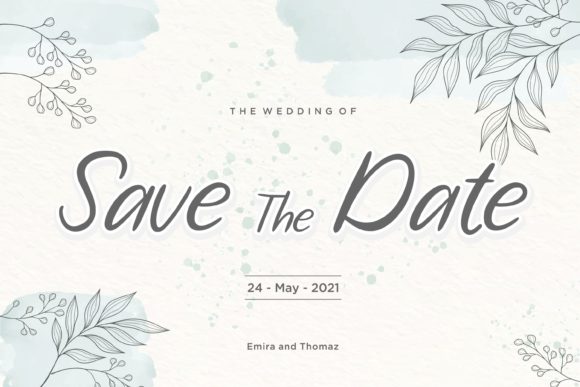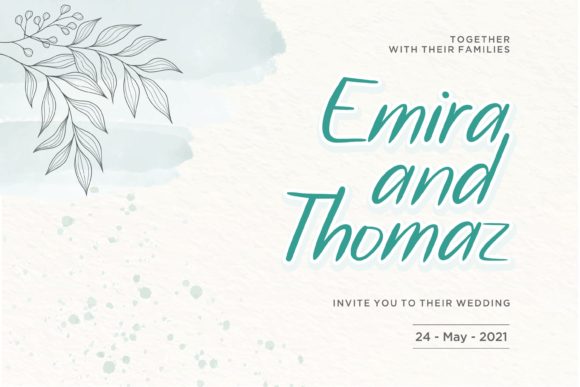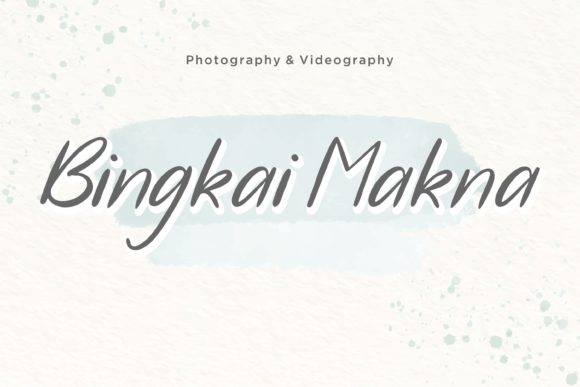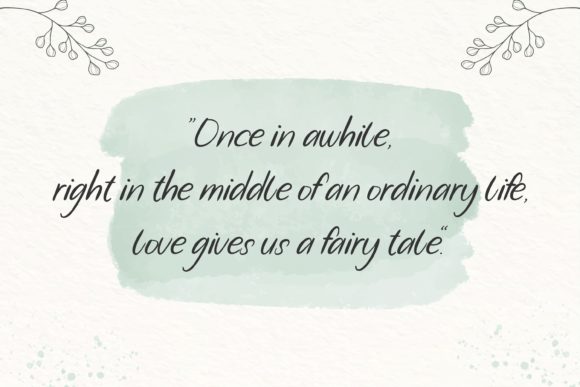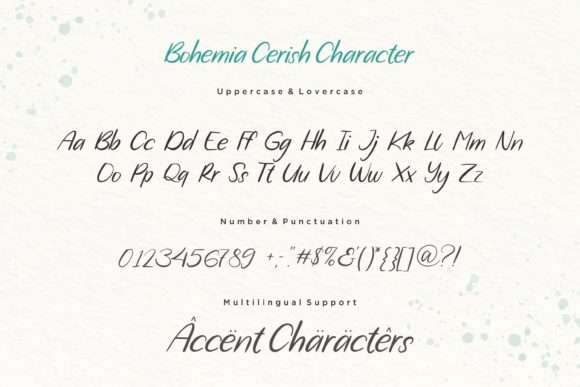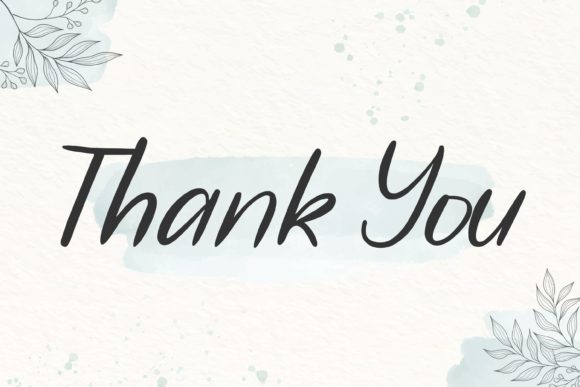
Introduction to Bohemia Cerish Font
Do you remember that moment when you finally found the perfect font to bring your creative project to life? The one that makes your design stand out and leaves a lasting impression on your audience? For many designers, that moment is a game-changer, and it’s exactly what Bohemia Cerish Font offers. This exquisite, handwritten font is a treasure trove of elegance and sophistication, making it the perfect design resource for any creative endeavor.
With its delicate, flowing lines and beautiful characters, Bohemia Cerish Font is a high-quality addition to any design arsenal. Whether you’re working on a project that requires a touch of whimsy or a more refined, sophisticated look, this font is sure to deliver. And the best part? It’s available for free download, making it an accessible design resource for designers of all levels.
So, what makes Bohemia Cerish Font so valuable to designers? For one, its versatility is unmatched. With gorgeous glyphs, stunning alternates, and a varying baseline, this font can be used in a wide range of designs, from wedding invitations to fashion branding. And with a transparent background, you can easily layer it over other design elements to create a truly unique look.
Key Features of Bohemia Cerish Font
- High-quality font design suitable for creative projects, including graphics, logos, and text overlays.
- Transparent background, making it easy to layer over images and achieve a seamless design.
- Unique characteristics: elegant, sophisticated, and vintage-inspired design elements, perfect for adding a touch of luxury to your design project.
Honest Review: Bohemia Cerish Font
As a designer, I’m always on the lookout for high-quality fonts that can elevate my creative projects. The Bohemia Cerish Font is one such find that caught my attention. ✨ Its elegant and sophisticated design makes it perfect for projects that require a touch of luxury.
Here are some of the key features that work well with the Bohemia Cerish Font:
- Elegant and sophisticated design
- High-quality font
- No extensive character set
- May not be suitable for casual or informal projects
Overall, I’m impressed with the Bohemia Cerish Font, and I think it’s a great addition to any designer’s toolkit. With its high-quality design and transparent background, it’s perfect for creative projects that require a touch of sophistication.
To get the most out of the Bohemia Cerish Font, use it with a transparent background to create a clean and modern design. Experiment with different font sizes and colors to create visual interest.
The Bohemia Cerish Font is commonly used in creative projects such as:
- Branding materials
- Print materials
Alternatives to Bohemia Cerish Font
Great Vibes Font is a high-quality, elegant script font suitable for creative projects requiring a touch of sophistication. It is ideal for designing invitations, wedding stationery, and other elegant documents. Great Vibes Font has a similar feel to Bohemia Cerish Font, but with a more refined and polished appearance.
Alex Brush Font is a beautiful, hand-painted script font perfect for designers looking for a high-quality design resource. It features a transparent background, making it ideal for use on a variety of backgrounds. Alex Brush Font is a great alternative to Bohemia Cerish Font for creative projects requiring a more rustic and vintage feel.